This guide to retro / 70s / groovy fonts shows how to pick rounded, playful curves for poster-ready vibes – with sizing and contrast tips so your headlines read instantly on thumbnails, reels and flyers.
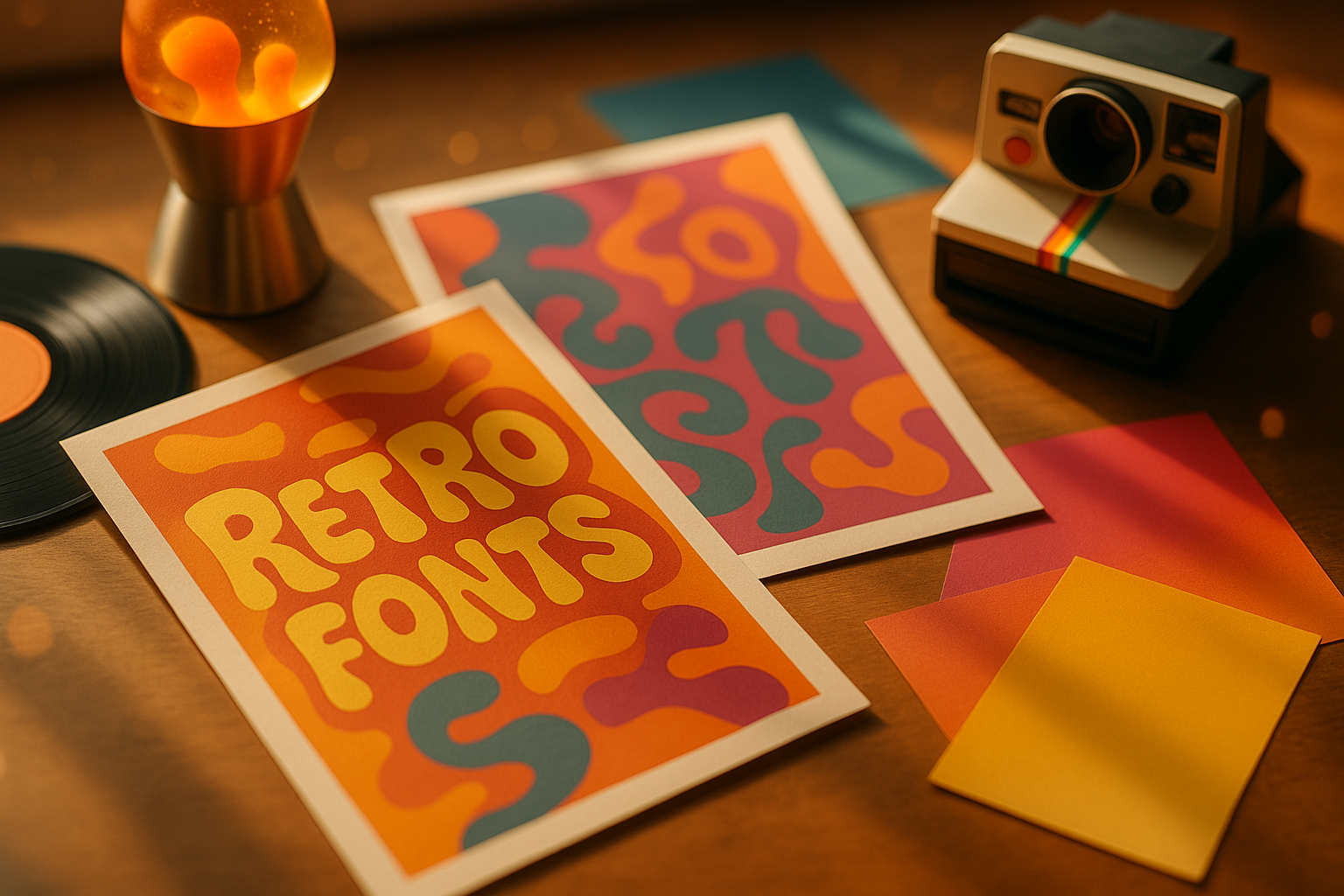
Bubble
Inflated, rounded letters for playful posters and kids’ packaging.
Psychedelic
Wavy counters and flowing contrast – perfect for festival art.
Disco
Club-ready curves, inline styles and sparkle-friendly caps.
70s Serif
Soft wedge serifs and warm contrast for editorial throwbacks.
Groovy Script
Connected, bouncy forms for merch, stickers and retro logos.
Rounded Sans
Friendly headlines with soft corners for badges and thumbnails.
Outline / Inline
Inline stripes, double lines and open shapes for layered color.
Shadow / 3D
Stacked shadows and extrudes that pop on social thumbnails.
Monoline
Even-stroke lettering, great for badges, patches and signs.
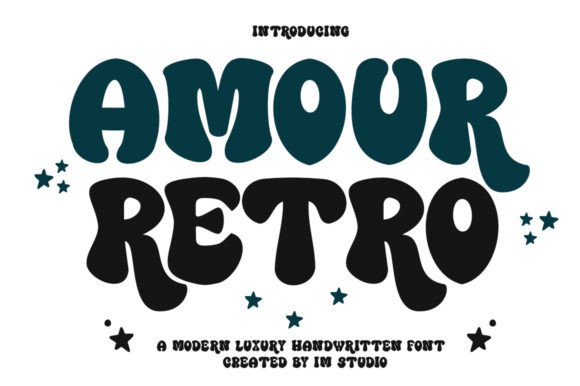
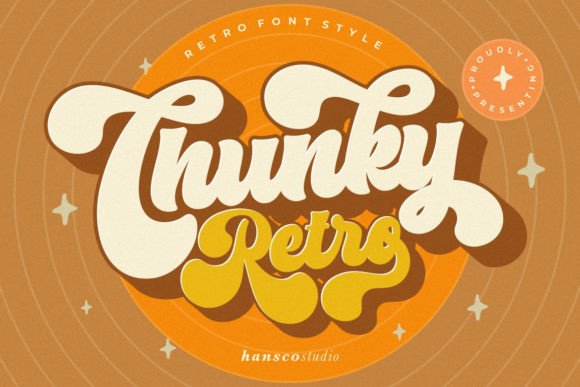
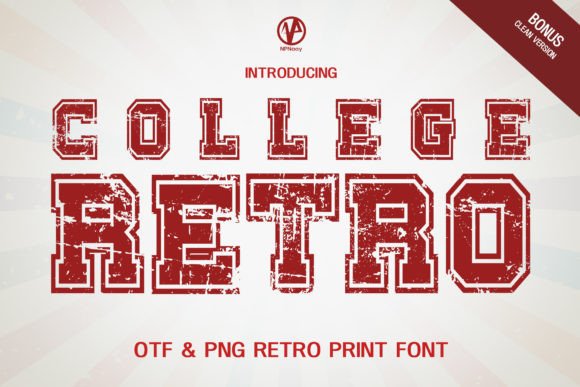
How to choose a retro font
- Read fast at small sizes. Test key words at 28–36 px; open counters and not-too-tight spacing keep bubble and psychedelic styles legible.
- Contrast that matches the era. Warm oranges/browns, cream, faded gradients and halftone textures amplify the 70s feel.
- Outline wisely. If using inline/outline, add a solid “helper” layer behind for tiny thumbnails.
- Spacing & rhythm. These curves like air – slightly increase tracking; kern pairs like “AV”, “To”, “ro”.
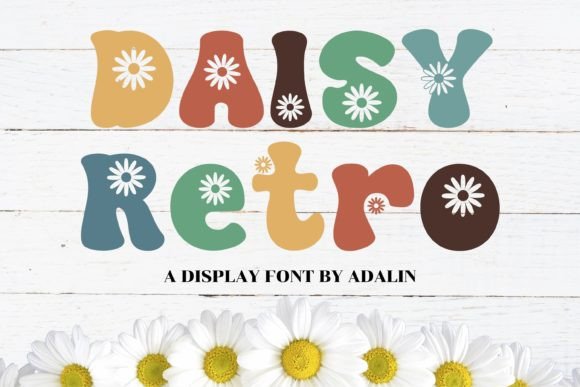
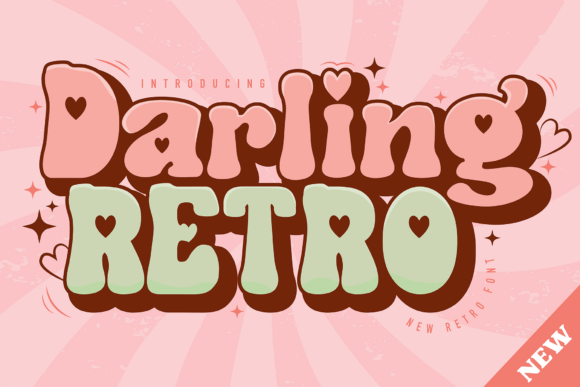
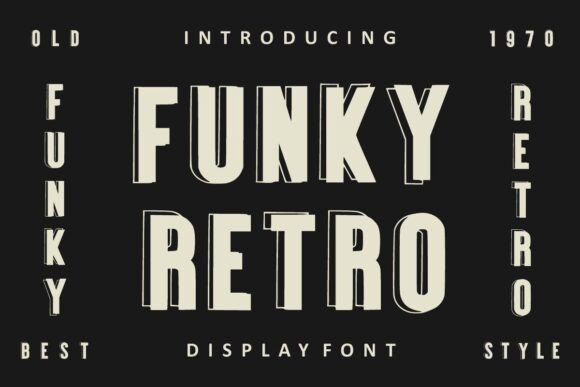
Font pairing recipes
Project ideas
- Event posters, festival flyers and ticket stubs.
- Reels/TikTok thumbnails with bold outlines and stacked shadows.
- T-shirts, stickers and pin-badges with monoline or bubble lettering.
- Brand refresh minis: retro wordmark + badge submark.
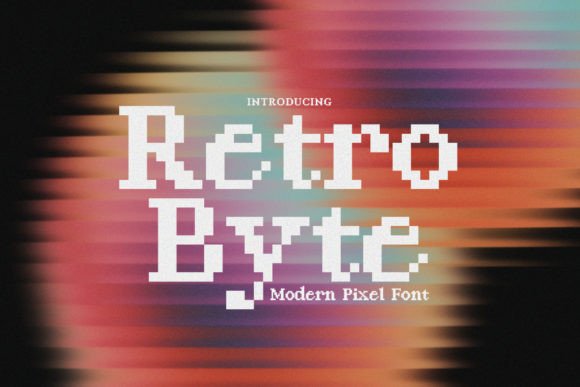
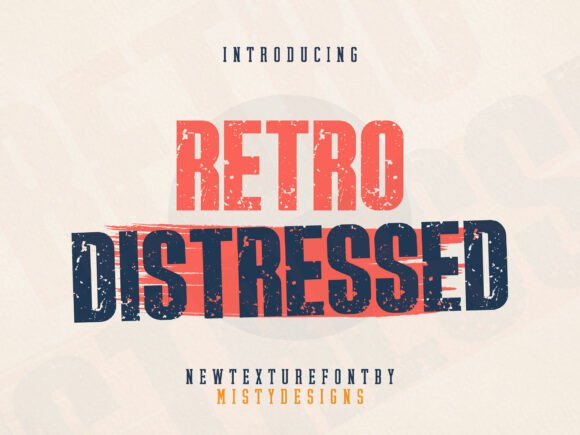
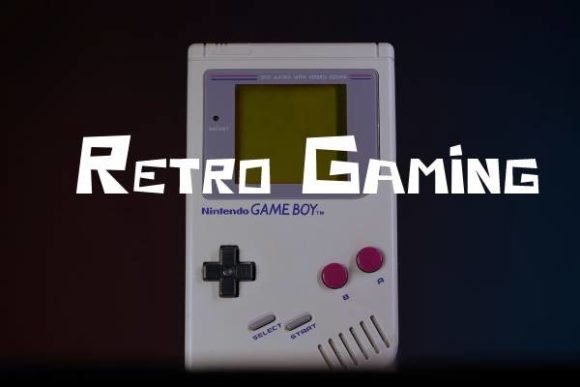
FAQ
How do I keep groovy/psychedelic fonts readable?
Use larger x-height, open counters and generous tracking. For thumbnails, add a solid stroke or outline layer behind the type.